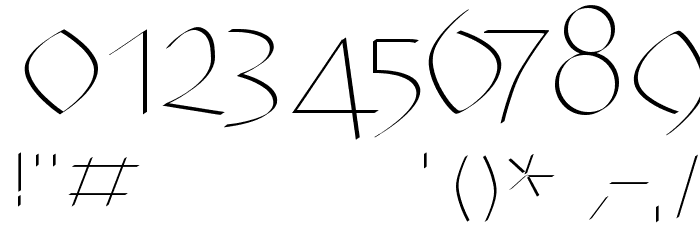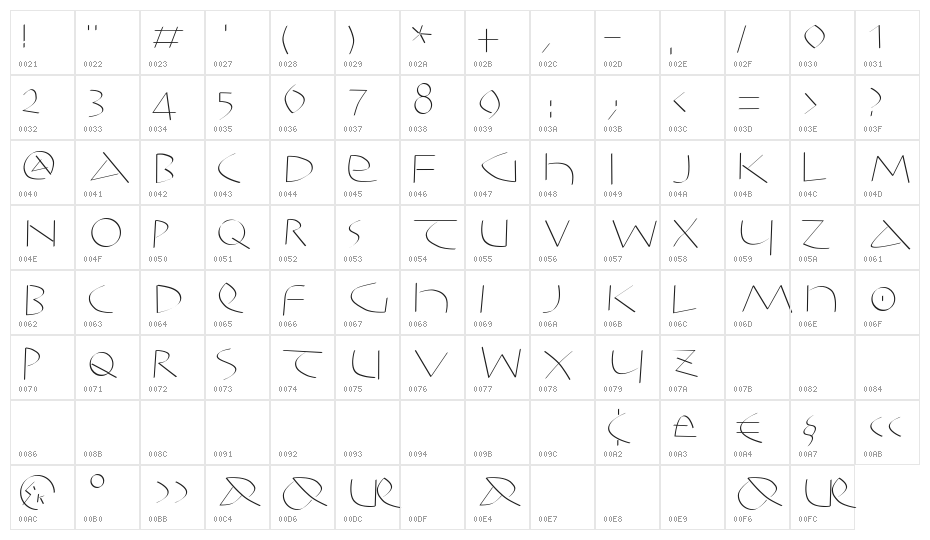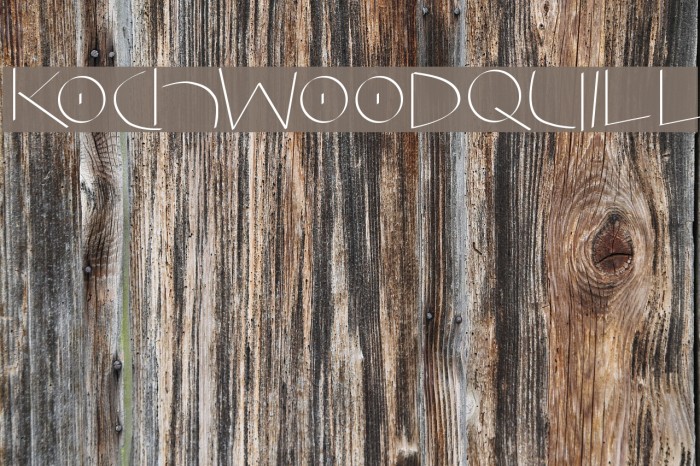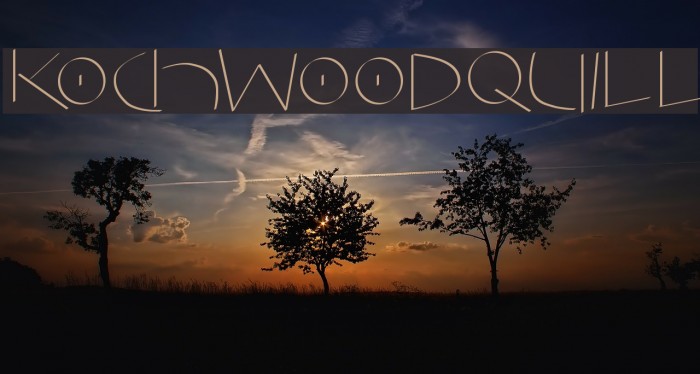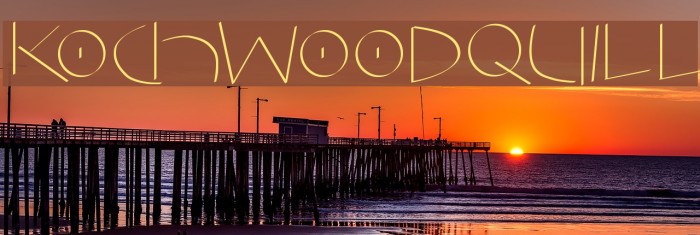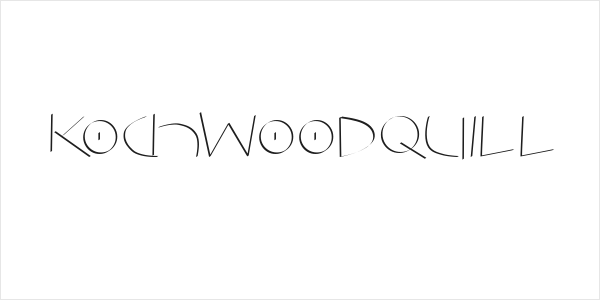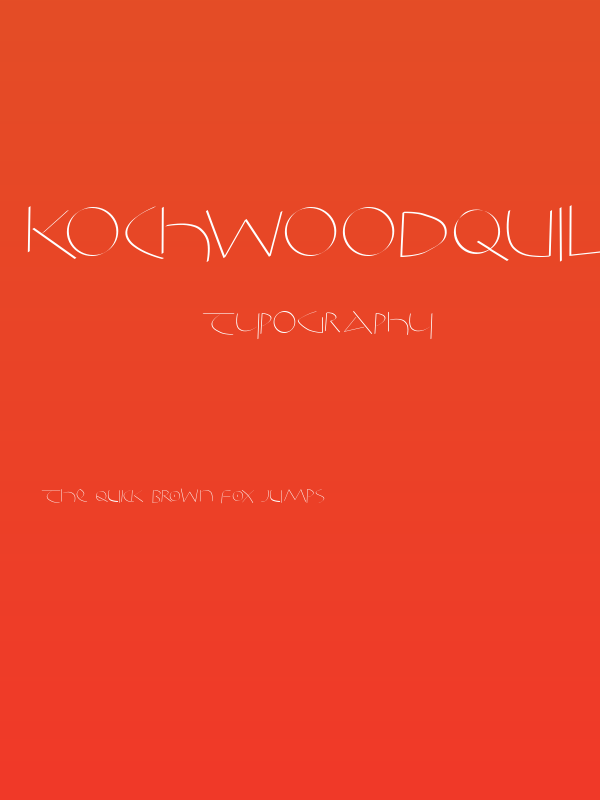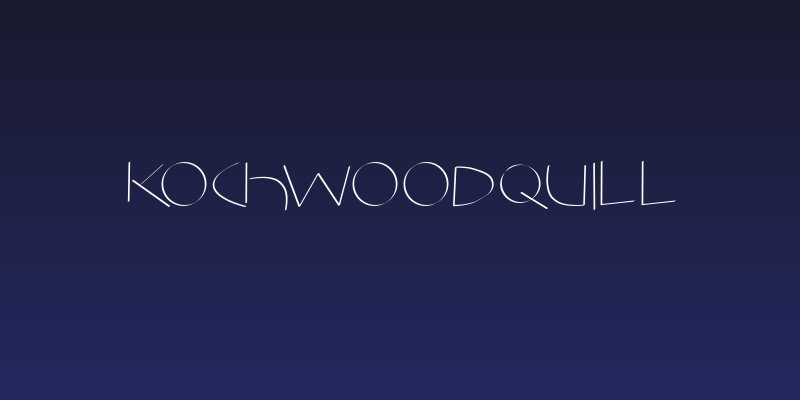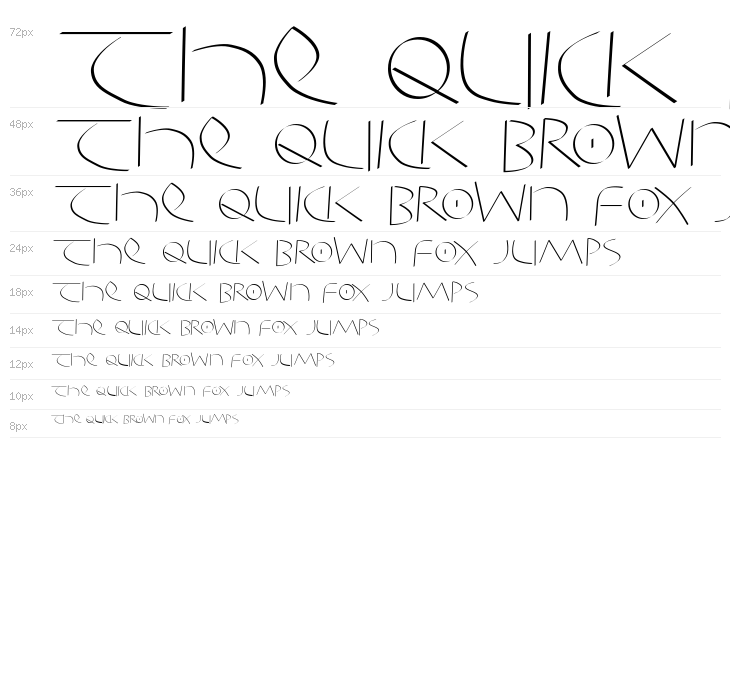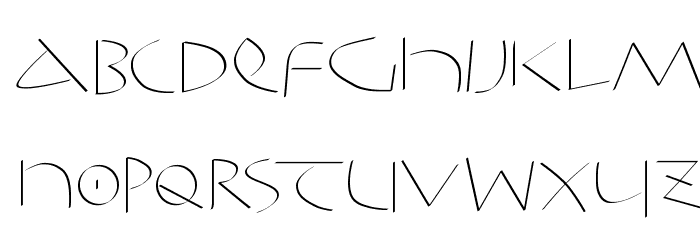
KochwoodQuill Font
KochwoodQuill Description
This font features a modern, artistic design with a unique blend of sharp angles and smooth curves. The uppercase letters are characterized by their sleek, elongated forms, while the lowercase letters maintain a consistent style with slightly more rounded edges. The numerals are distinct, with a creative flair that complements the overall aesthetic. Special characters are designed to match the font's elegant and contemporary feel. The font's thin strokes and geometric shapes give it a sophisticated and stylish appearance, making it suitable for a variety of creative applications.
| Proposed Projects | Ideal for branding, logos, fashion magazines, and modern art projects. |